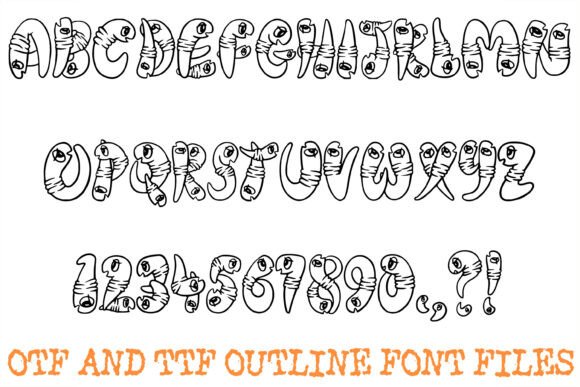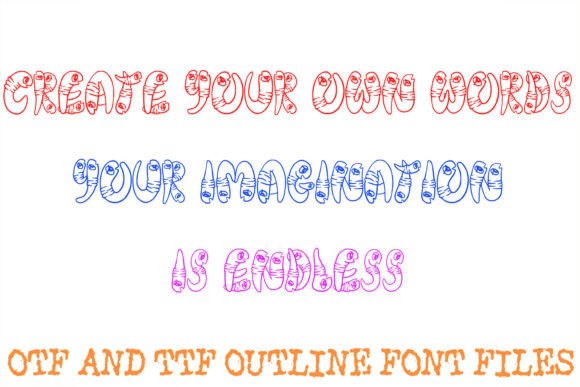
The Squirmy Charm of Chunky Design
Have you ever found yourself captivated by the whimsical world of garden critters? Perhaps while tending to your backyard garden or strolling through a lush park, you’ve paused to admire a particularly plump earthworm or a busy ant scurrying across the soil. It’s in these moments that the idea for a playful font can take root.
Meet the Chunky Worms Font, a bold and humorous display typeface that reimagines every letter as a thick, wiggly garden critter. This font is perfect for designers looking to add a friendly and mischievous personality to their projects. With its heavy, organic weight and hand-drawn details, the Chunky Worms Font delivers a professional, artisan-sketched look that stands out with its unique, squirmy charm.
- Unique Characteristics: Distinctive, playful worm-inspired design with chunky lines and rounded edges
Chunky Worms Font Review
I recently had the chance to work with Chunky Worms Font, and I must say it’s an… interesting choice. While it may not be for everyone, there are some things that work well. ✨ The font’s playful, whimsical vibe is perfect for kids’ books, cartoons, or any project that needs a lighthearted touch. The chunky, rounded shapes also make it great for headings and titles, adding a sense of friendliness and approachability.
- ✨ Suitable for children’s content, cartoons, and lighthearted projects
- ✨ Great for headings and titles due to its friendly, approachable feel
- ✨ Unique, playful design that stands out from more traditional fonts
However, there are some limitations to consider. ⚠️ The font can be overwhelming if used extensively throughout a design, and the chunky shapes may not be suitable for more serious or formal content. Additionally, the font’s weight may make it difficult to read in smaller sizes.
- ⚠️ May be overwhelming if used extensively throughout a design
- ⚠️ Not suitable for formal or serious content due to its playful design
- ⚠️ May be difficult to read in smaller sizes due to weight
Overall, Chunky Worms Font is a fun, quirky choice that’s perfect for the right project. If you’re looking to add a playful touch to your design, this font may be just what you need. However, be mindful of its limitations and use it judiciously to avoid overwhelming your audience.
The Chunky Worms font is ideal for:
- Children’s book covers and illustrations.
- Playful brand logos and typography.
- Handwritten-style fonts for creative projects.
For optimal results, pair the Chunky Worms font with bold, colorful graphics and playful design elements.